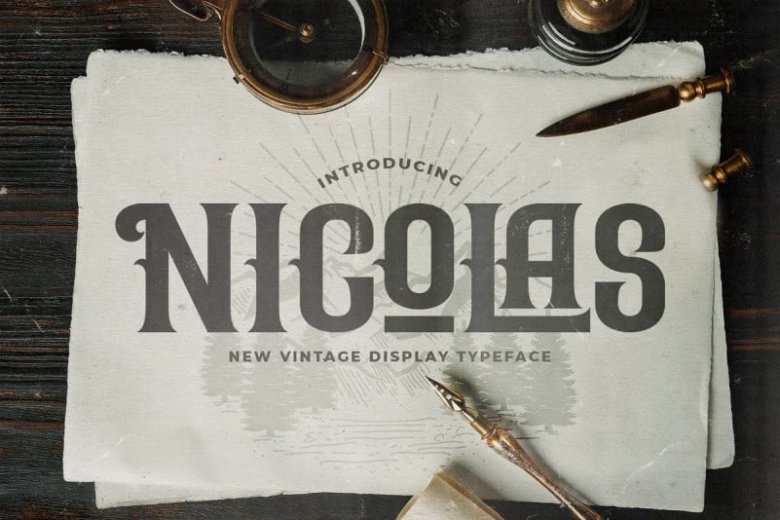
Nicolas Font
Nicolas Display Font is a inspired by classic fonts with retro style. It’s designed and shared by StringLabs. It’s a great font for fashion, apparel projects, album cover, logo, branding, magazine, social media, & advertisements, but also works great for other projects.